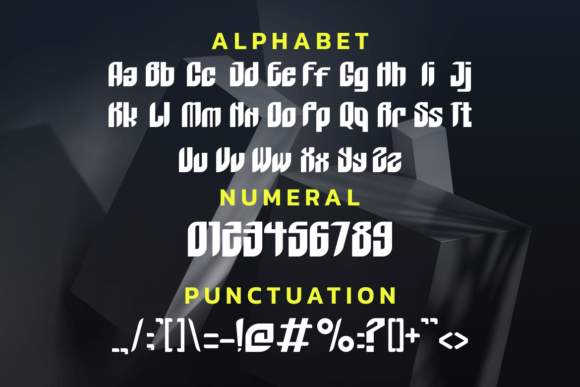
The Perfect Blend of Bold and Authentic: Introducing Absurdly Font
Have you ever stared at a blank canvas, feeling the creative juices start to flow, only to be halted by the daunting task of choosing the perfect font? We’ve all been there – the endless scrolling through Google Fonts, the endless tweaking of font sizes and styles, the endless frustration when it just doesn’t feel right. But what if I told you that there’s a font that’s about to change the game for you?
Meet Absurdly Font, a modern display font that’s designed to make your branding projects stand out. With its bold and authentic style, Absurdly Font is perfect for logos, t-shirt printing, e-sports, and any other project that needs a little extra oomph. As a designer, you know how valuable it is to have a font that’s versatile, reliable, and above all, effective. With Absurdly Font, you’ll be able to bring your creative vision to life in a way that’s truly unforgettable.
Key Features of “Absurdly Font”
- Font Family: A unique, hand-drawn sans-serif font with 8 different font styles, each with its own quirky twist.
- Unique Characteristics: Features a mix of geometric and organic shapes, with a focus on bold lines and playful letterforms, making it perfect for designs that need a touch of whimsy.
- Unicode Support: Supports a wide range of languages, including Latin, Cyrillic, and Greek alphabets, making it a versatile choice for multilingual designs.
Designer Review: Absurdly Font
Overall, I think Absurdly Font has some great qualities that make it stand out, but also some limitations that hold it back. Let’s dive in and take a closer look.
- Unique and playful aesthetic: Absurdly Font has a quirky charm that’s perfect for adding some personality to your designs.
- Good legibility: Despite its unusual shape, the font is still easy to read, even at smaller sizes.
- Wide character set: Absurdly Font includes a comprehensive set of characters, including punctuation and symbols.
- Limited versatility: While Absurdly Font is great for playful designs, it may not be the best choice for more formal or professional projects.
- No italic or bold styles: This can make it difficult to create emphasis or add variety to your text.
- Not suitable for small text: The font’s unique shape can make it difficult to read at very small sizes.
In conclusion, Absurdly Font is a fun and quirky font that’s perfect for adding some personality to your designs. While it has some limitations, it’s still a great choice for creative projects and can add a unique touch to your work.
Use Absurdly Font to add a touch of whimsy and playfulness to your designs. Experiment with different font sizes, colors, and styles to create a unique look.
Combine Absurdly Font with other bold and playful fonts to create a striking visual effect.
Use Absurdly Font for:
- Marketing materials, such as posters and brochures.
- Social media graphics and ads.
- Party invitations and event materials.
- Children’s book covers and
Q: What is the recommended font size for Absurdly Font?
The recommended font size for Absurdly Font is between 12pt and 24pt. At smaller sizes, the font may become difficult to read, while at larger sizes, the font may become too large for the space. You can experiment with different font sizes to find the optimal size for your project.